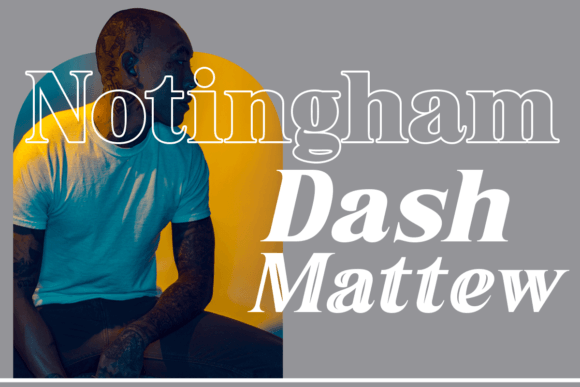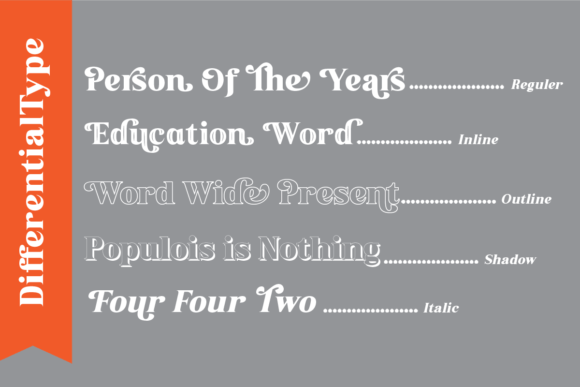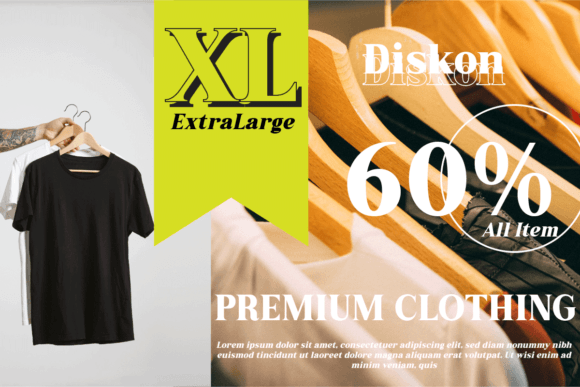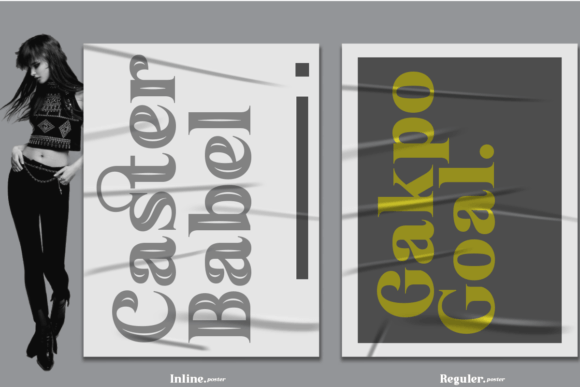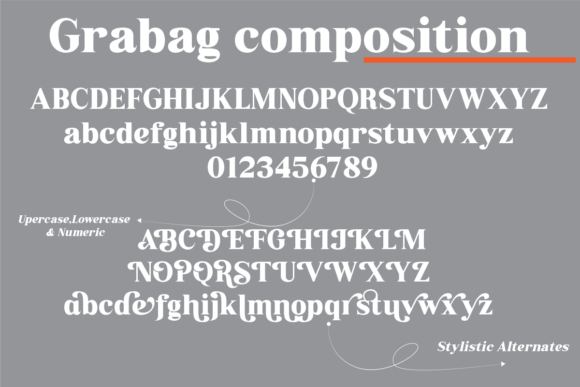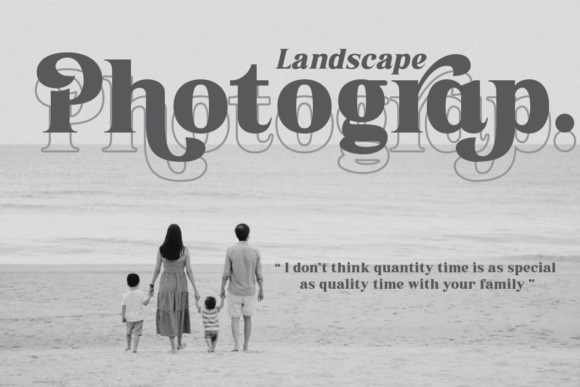
Introduction to Grabag Font
Grabag is a bold vintage display font that comes in four styles.
It will look great for headlines, branding, magazines, logos, and more Grabag will add a masculine and firm impression to every design you wish to create.
Key Features of Grabag Font
Why Choose Grabag Font?